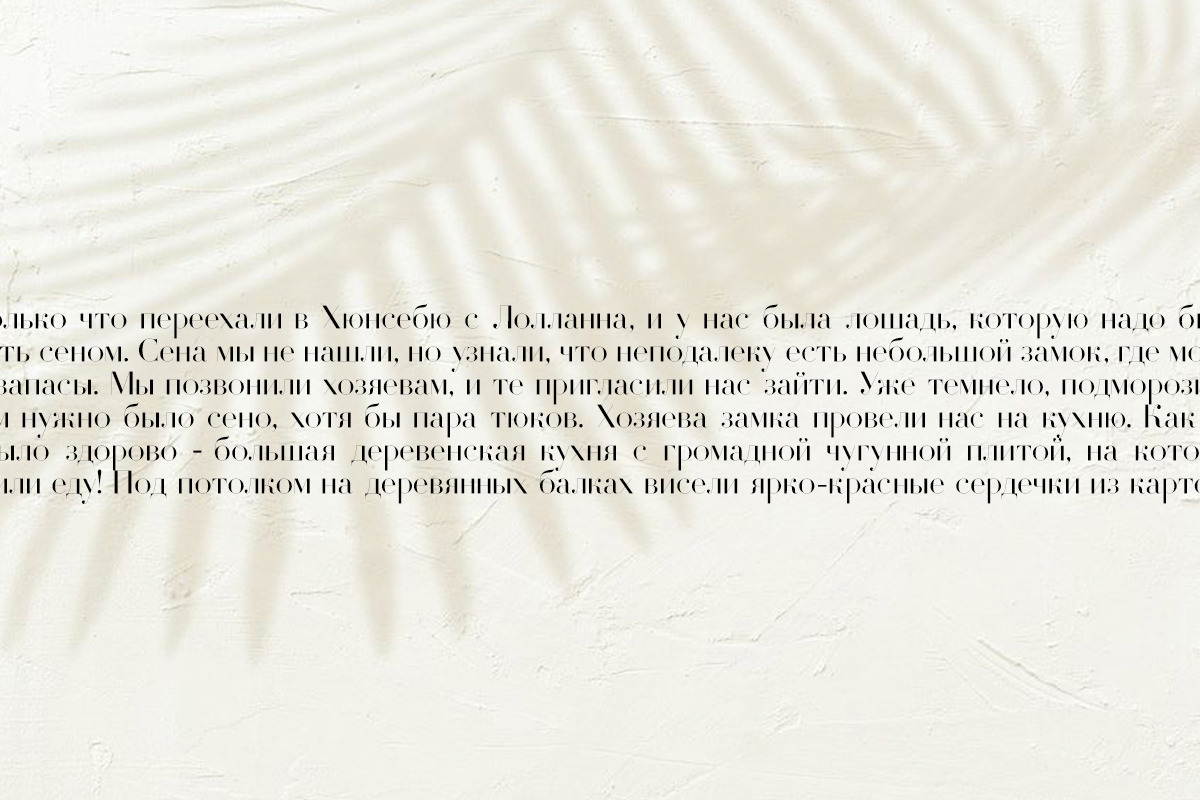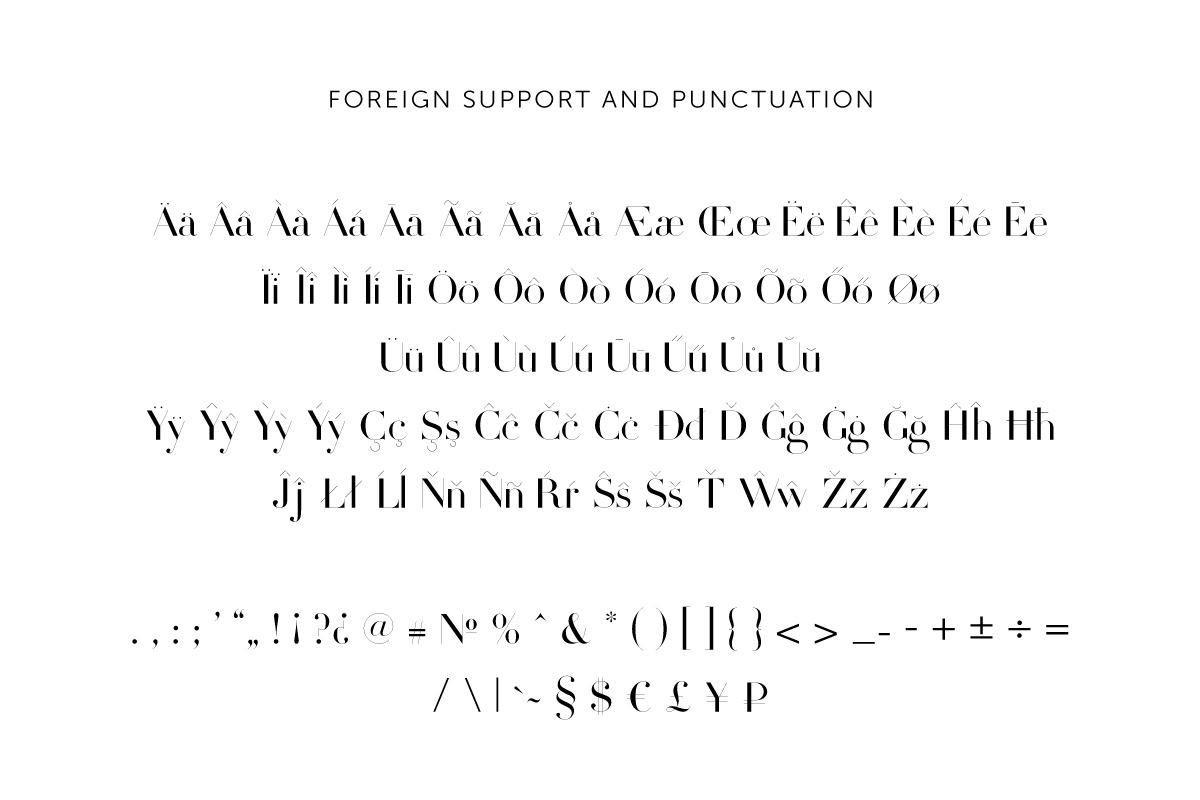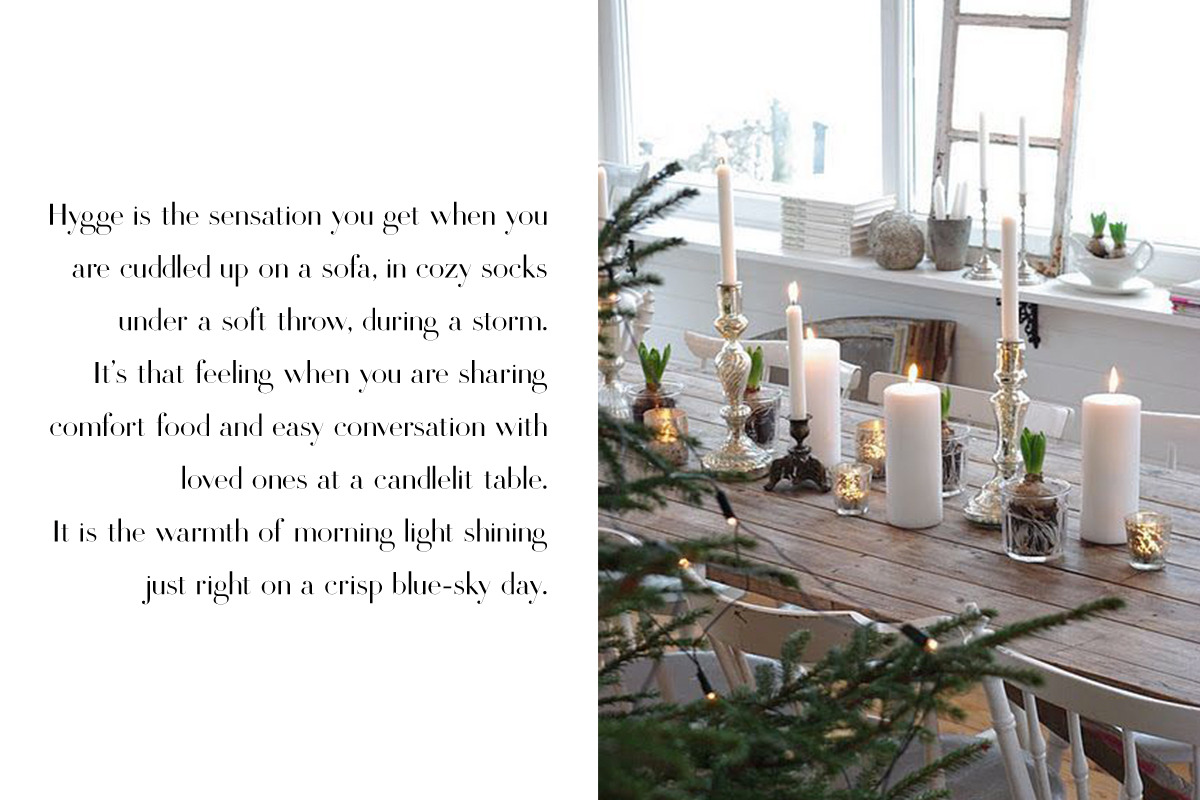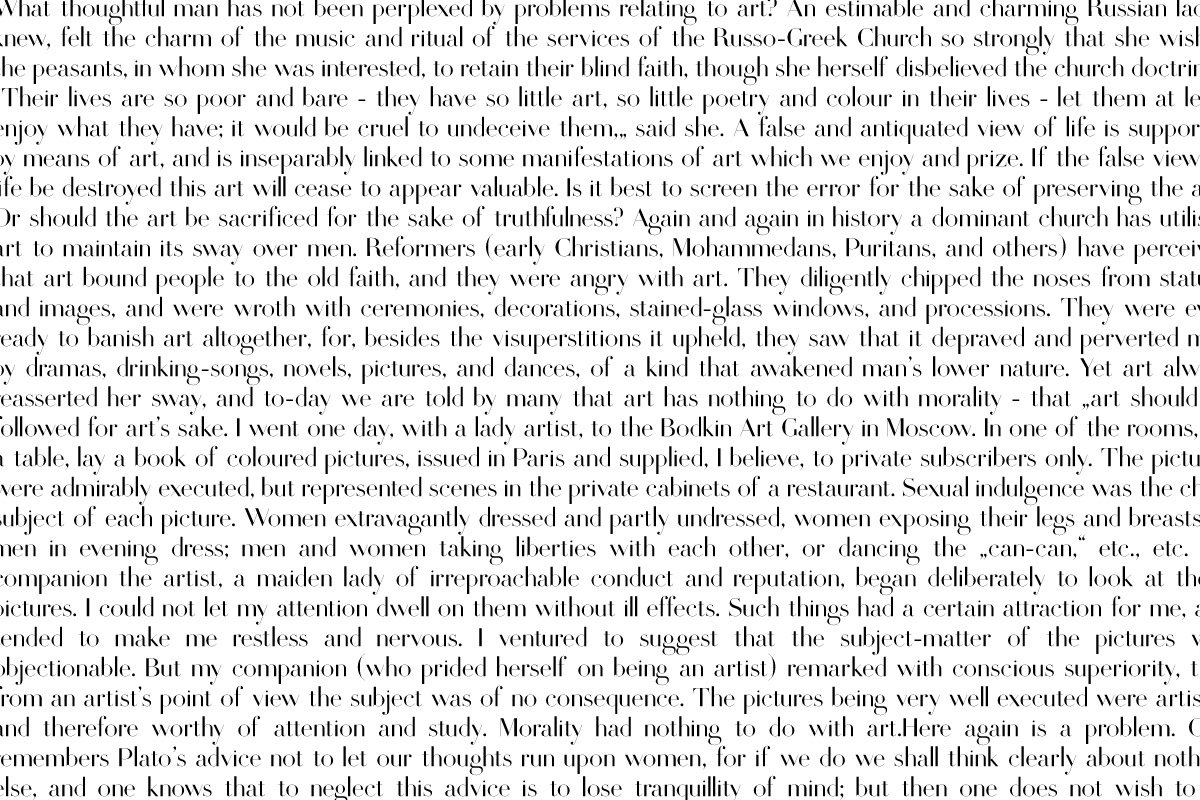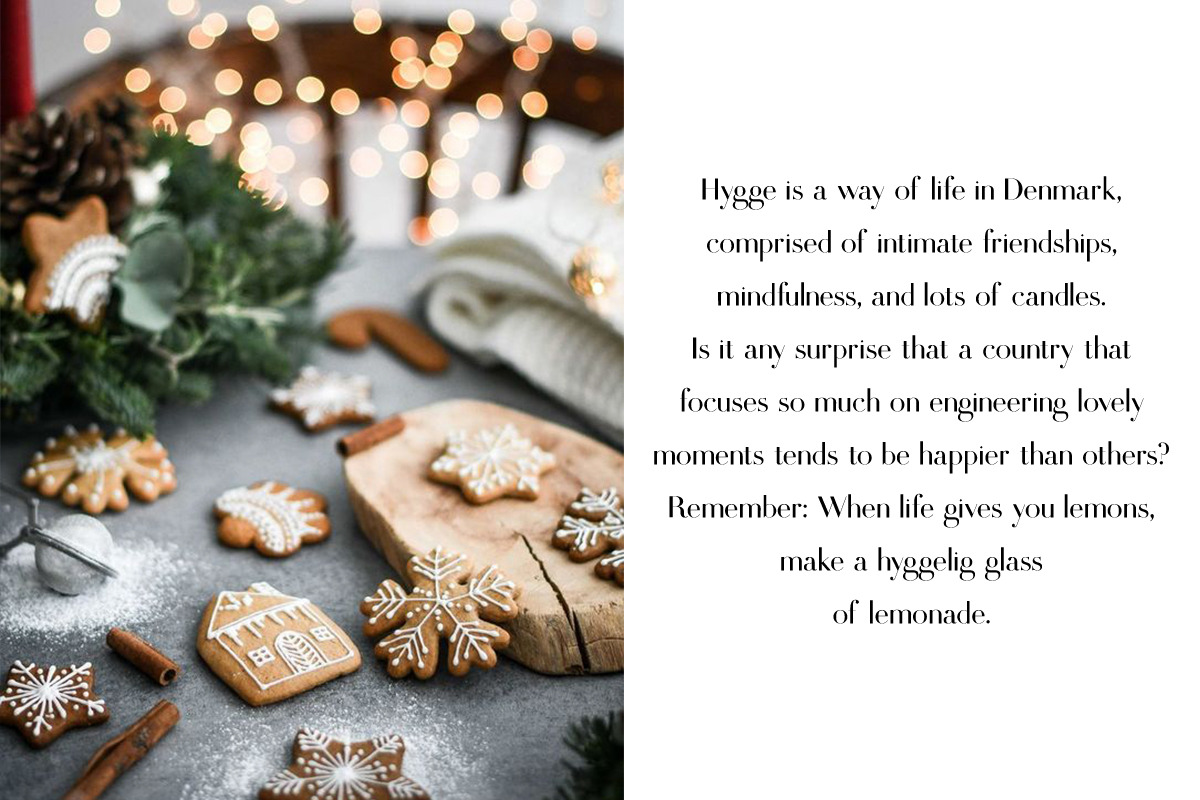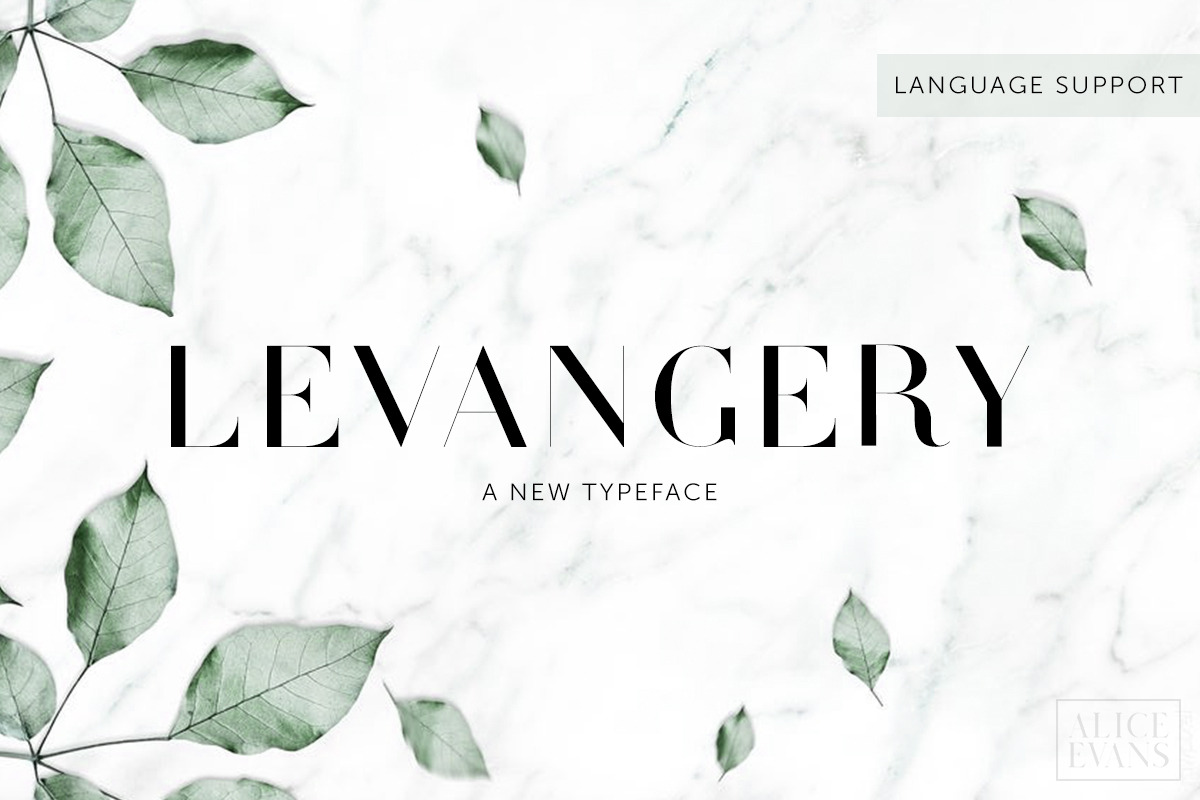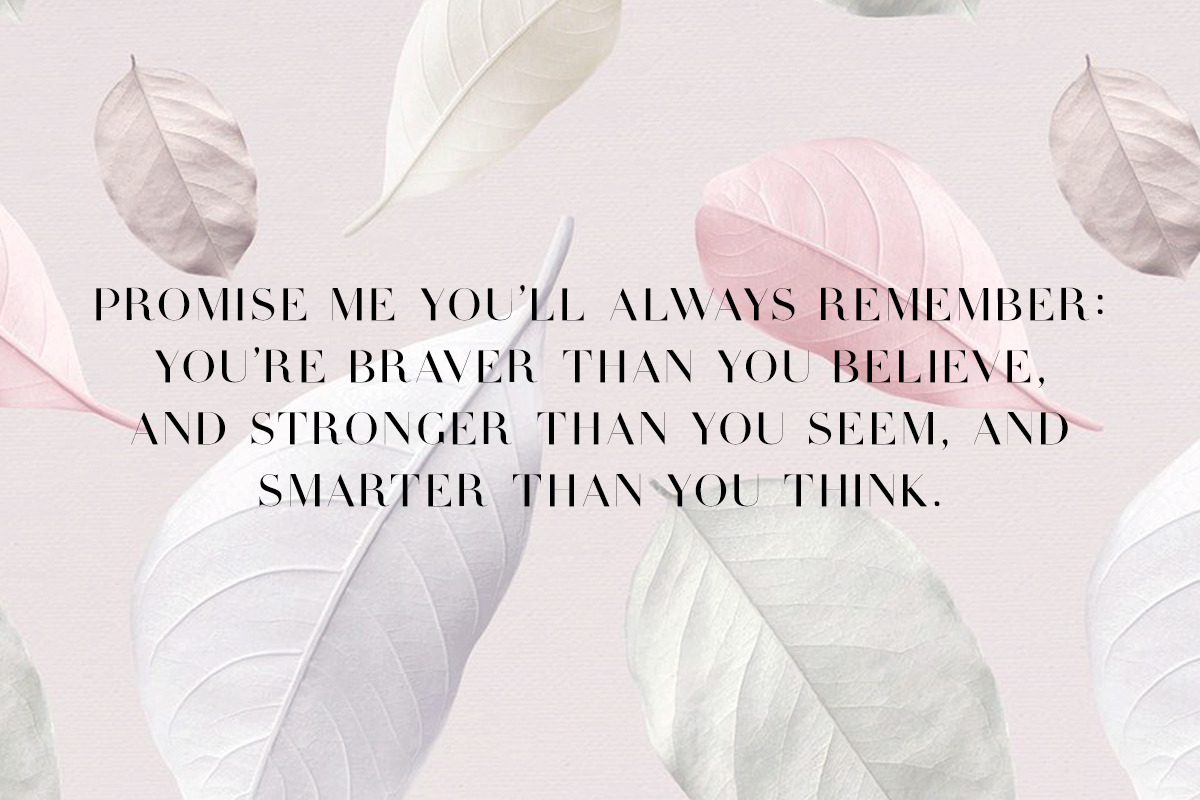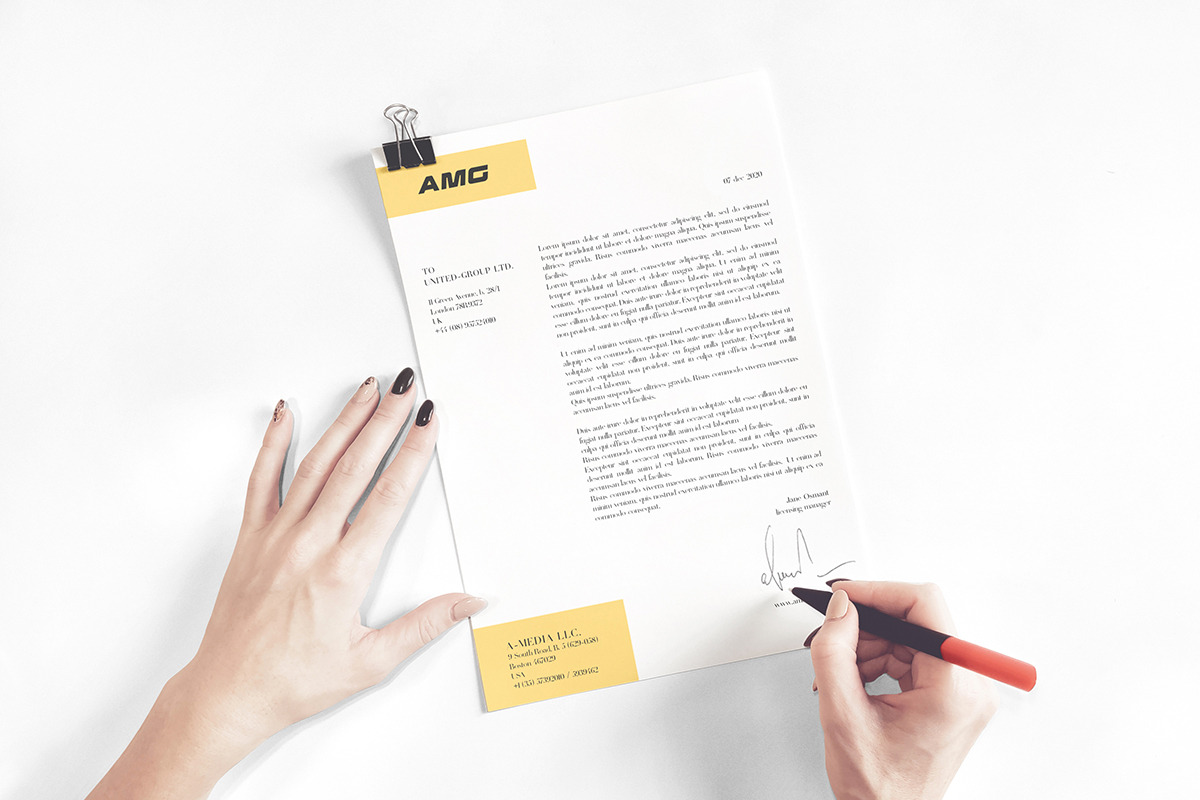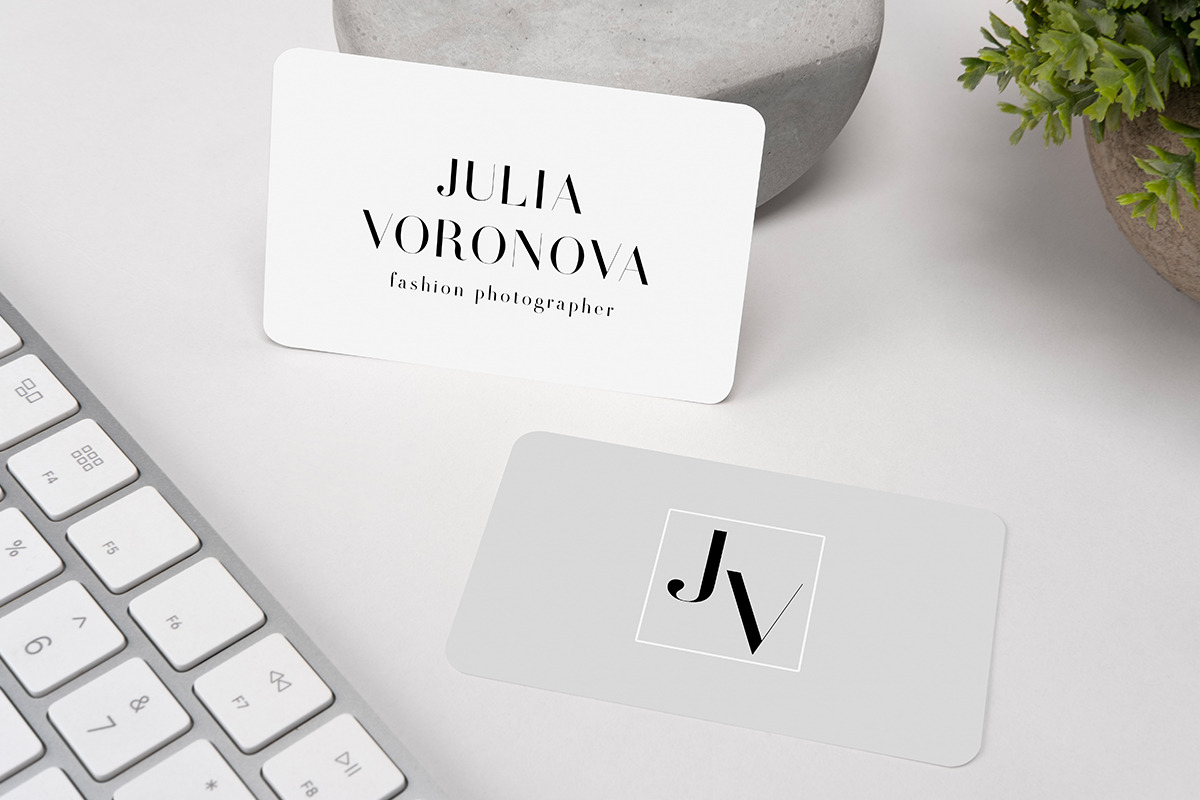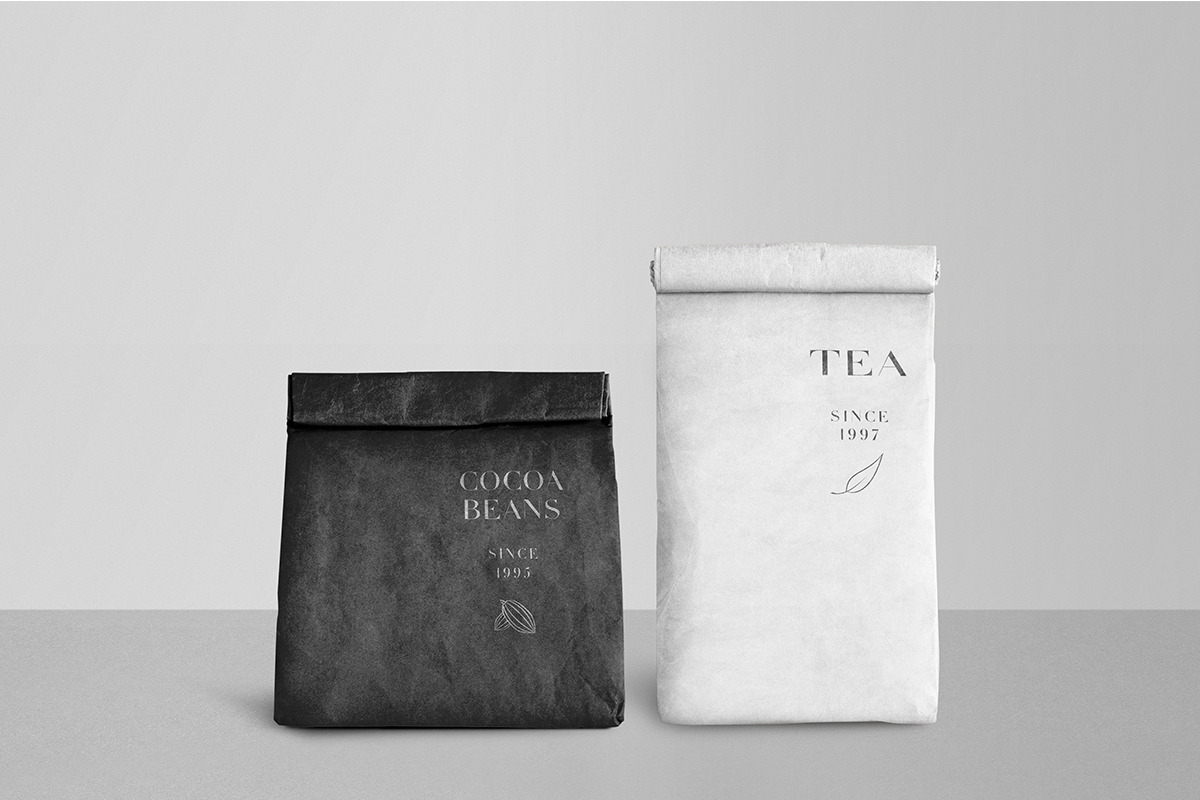
Levangery Typeface
Introducing Levangery, an elegant font, combines thin and wide lines. It includes Latin and Cyrillic alphabets (Upper and Lowercase both), as well as other languages with supporting of the most glyphs, also numbers and symbols. Perfect for naming, cards, initials, logos, websites and more!
Levangery Features:
- x 26 Uppercase Latin characters
- x 26 Lowercase Latin characters
- x 33 Uppercase Cyrillic characters
- x 33 Lowercase Cyrillic characters
- 0-9 numbers
- punctuation symbols
- languages supporting glyphs